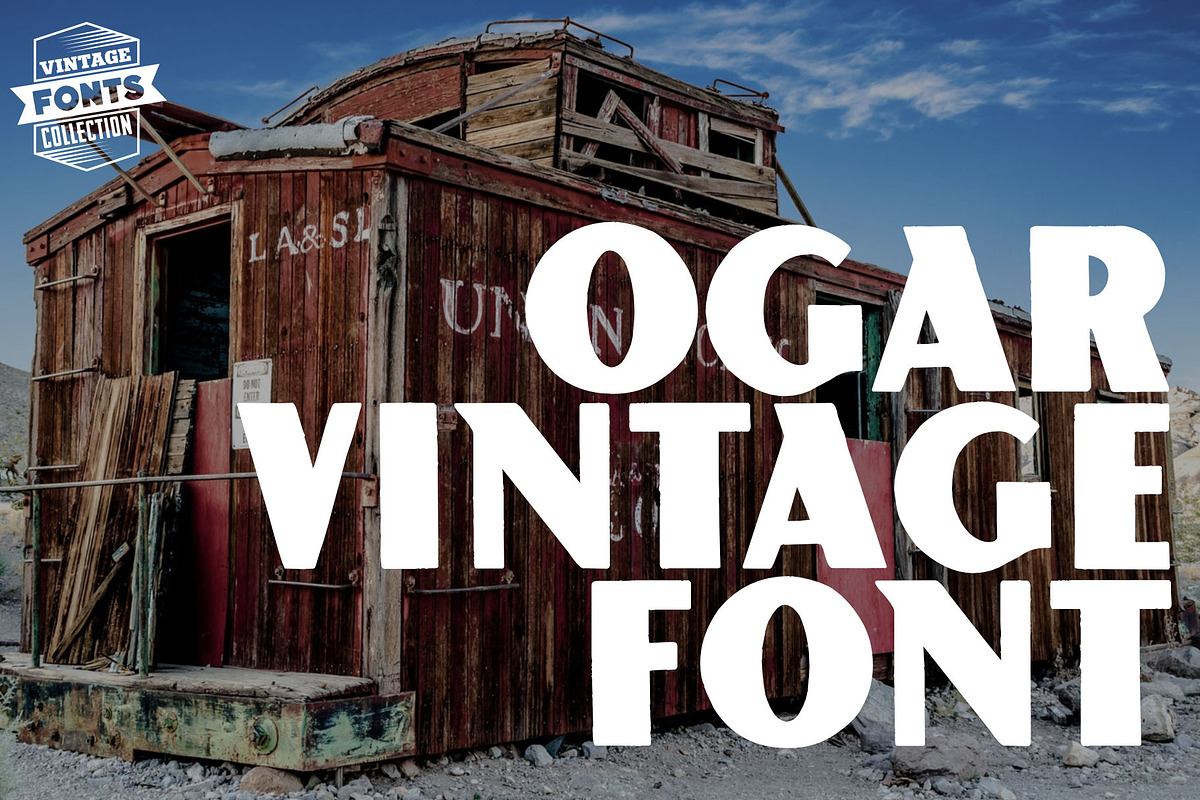
Add classic charm to your designs with Ogar - 2 Vintage Fonts Free Download, a beautifully crafted font duo inspired by retro aesthetics. You need to purchase this font for commercial use. However, you can test it for personal or non-commercial projects using Ogar - 2 Vintage Fonts Free Download. Featuring bold serif and script styles, this pair is perfect for logos, packaging, posters, apparel, and nostalgic branding. Designers love the timeless appeal and versatility it brings to both modern and vintage-inspired projects. Download Ogar - 2 Vintage Fonts Free Download today and infuse your creative work with character and old-school flair.